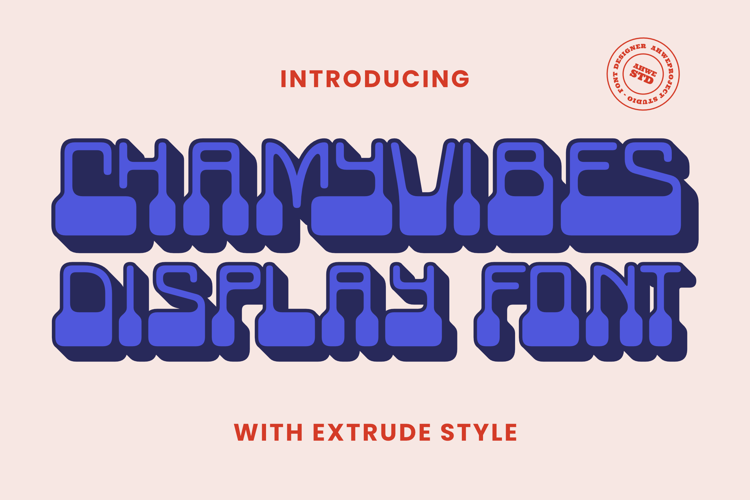
Chamyvibes Font
About Chamyvibes Font
Chamyvibes is a unique display font with aesthetic looks. This font is perfect for storybooks or child themes that need a standout font. It is also great for invitations, labels, logos, magazines, books, greeting/wedding cards, packaging, fashion, makeup, stationery, novels, labels, or any type of advertising purpose.
Chamyvibes is perfect for branding projects, logo, wedding designs, social media posts, advertisements, product packaging, product designs, label, photography, watermark, invitation, stationery and any projects that need handwriting taste.